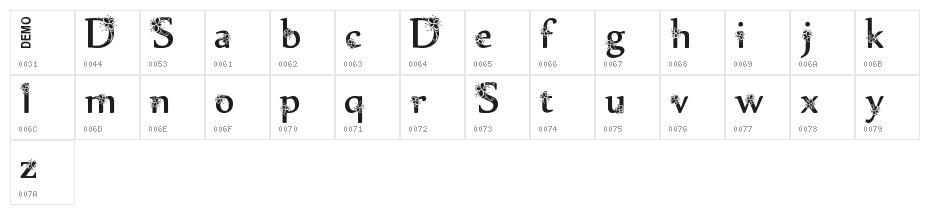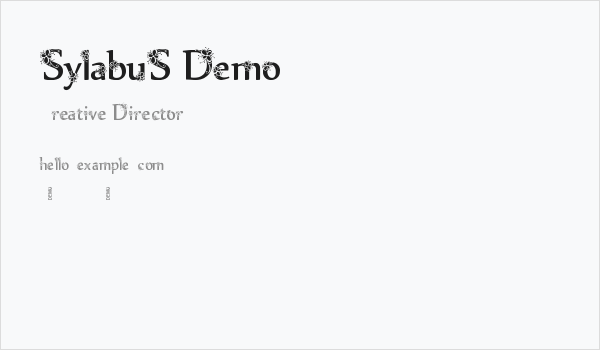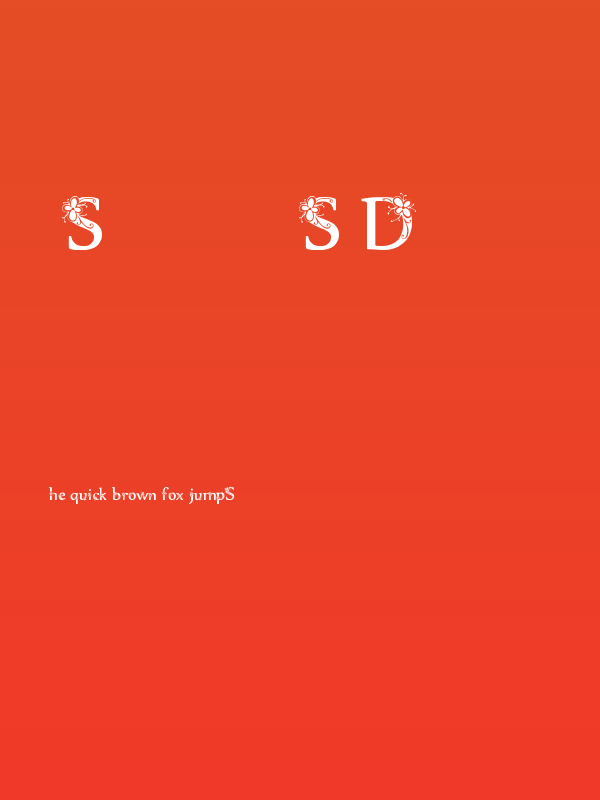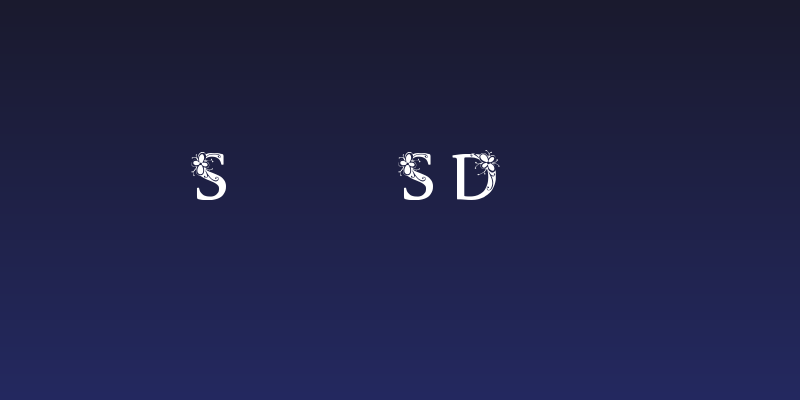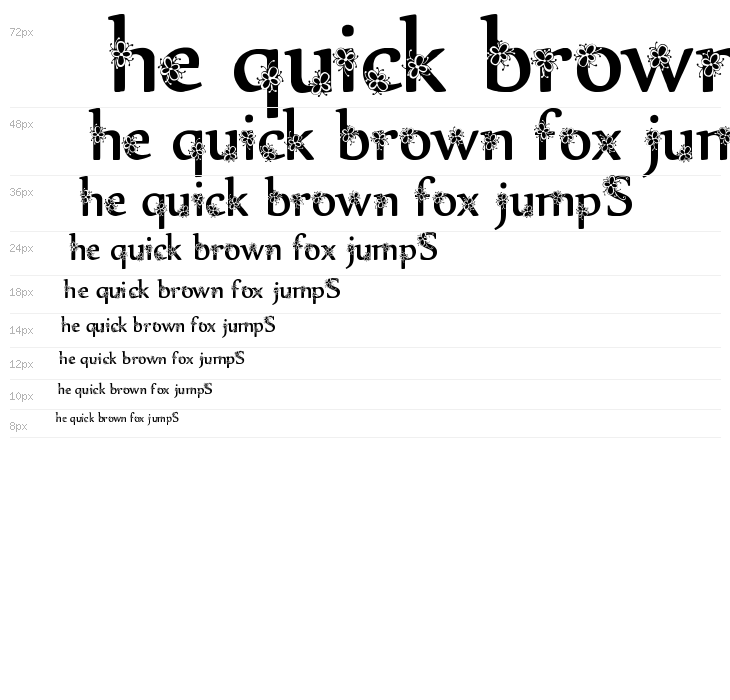
Sylabus Demo Font
| Progetti proposti | Ideal for wedding invitations, greeting cards, artistic posters, and branding materials that require a whimsical and decorative touch. |